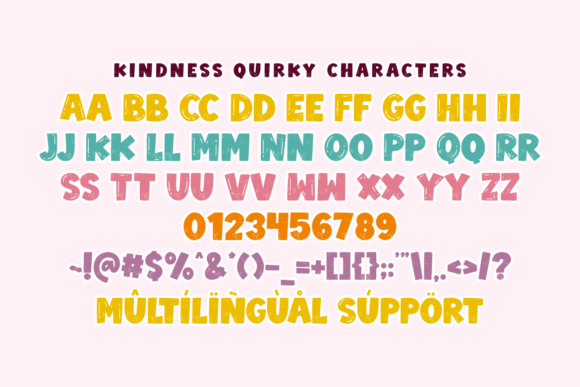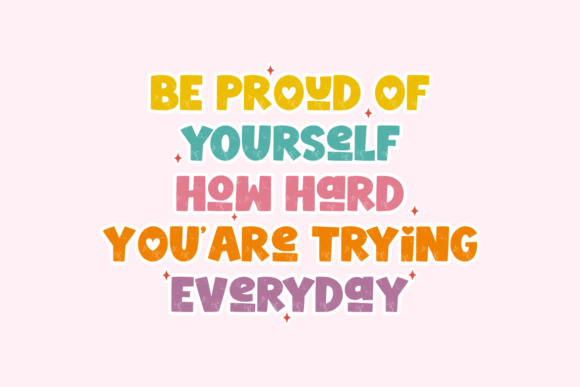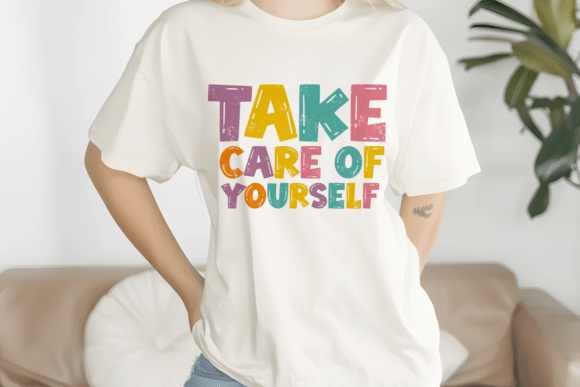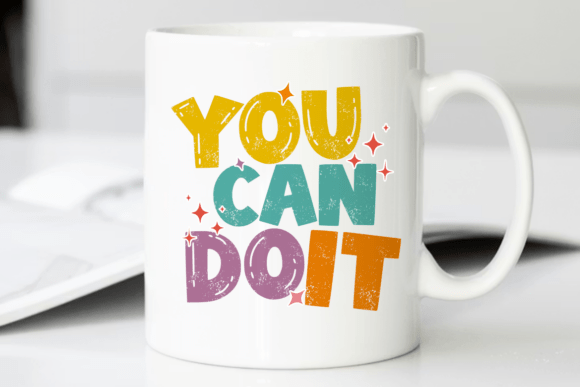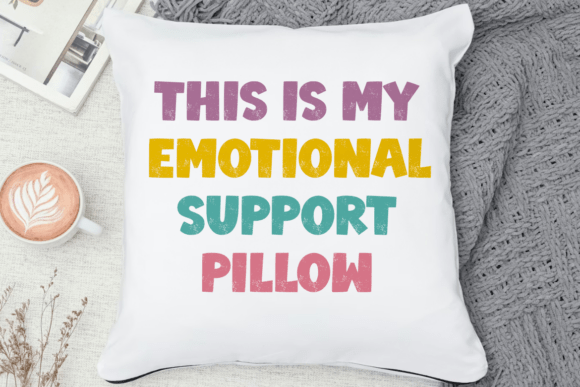
Bring a Touch of Whimsy to Your Designs
You know that moment when a single font can elevate your entire design project? For me, it’s the spark that ignites a creative fire. Whether I’m brainstorming ideas for a new campaign or simply experimenting with different typography styles, that initial spark is what drives me to create something truly special.
That’s exactly what I found with the Kindness Quirky Texture Font – a delightful retro display font that exudes playfulness and adds a dreamy touch to any design. Perfect for creating eye-catching headlines, posters, social media graphics, and branding, this quirky font is a must-have for designers looking to add a personal touch to their projects.
With its soft curves and bold appearance, the Kindness Quirky Texture Font is a valuable addition to any designer’s toolkit, offering endless possibilities for creative expression and experimentation.
Key Features of Kindness Quirky Texture Font
- Font Family: Kindness Quirky Texture Font is a unique, hand-drawn font designed to convey a sense of warmth and approachability.
- Unique Characteristics: Kindness Quirky Texture Font features a quirky, textured design that adds a touch of personality to any text-based design. The font includes a range of quirky characters, including alternative glyphs and ligatures.
- Legibility: Despite its unique design, the font remains highly legible, making it suitable for use in body text, headings, and other design elements.
Kindness Quirky Texture Font Review
I recently had the chance to work with the Kindness Quirky Texture Font, and I must say, it’s a unique and charming addition to any design project. ✨
- The font’s quirky texture and playful nature make it perfect for projects that require a whimsical touch.
- The high level of customization allows users to tailor the font to fit their specific design needs.
- The font’s organic feel adds a sense of warmth and approachability to any design.
- The font may not be suitable for projects that require a more formal or professional tone.
- The texture can sometimes be overwhelming, making it difficult to read large blocks of text.
Overall, I would say that the Kindness Quirky Texture Font is a solid choice for designers looking to add some personality to their projects. While it may not be suitable for every design need, it’s a great option for those looking to add a touch of whimsy and warmth to their work.
Getting the Most Out of the Font
To get the most out of the Kindness Quirky Texture Font, try the following tips:
1. Experiment with different font sizes and styles to create visual interest.
2. Pair the font with other unique textures and patterns to create a cohesive look.
3. Use the font to add a personal touch to your designs and documents.
The Kindness Quirky Texture Font is perfect for:
1. Creating eye-catching social media graphics.
2. Designing unique wedding invitations or party decorations.
3. Adding a personal touch to business cards or
Great Vibes is a modern script font that is designed to evoke a sense of relaxation and calmness. It is perfect for use in designs where a friendly and approachable tone is desired.
What is the recommended font size and resolution for optimal display of the Kindness Quirky Texture Font?
For optimal display, we recommend using a font size between 12 and 24 points, and a resolution of at least 300 DPI (dots per inch). This will ensure the font’s quirky texture and unique character are preserved, even at smaller sizes or in low-resolution environments.